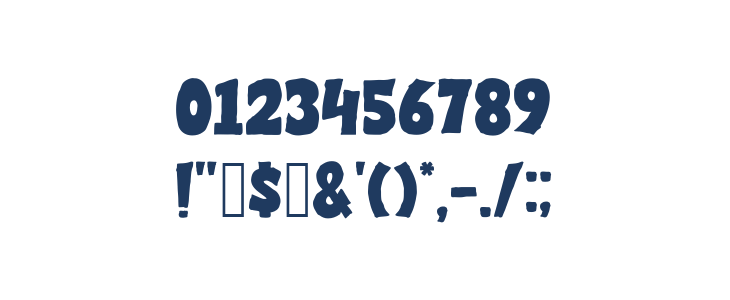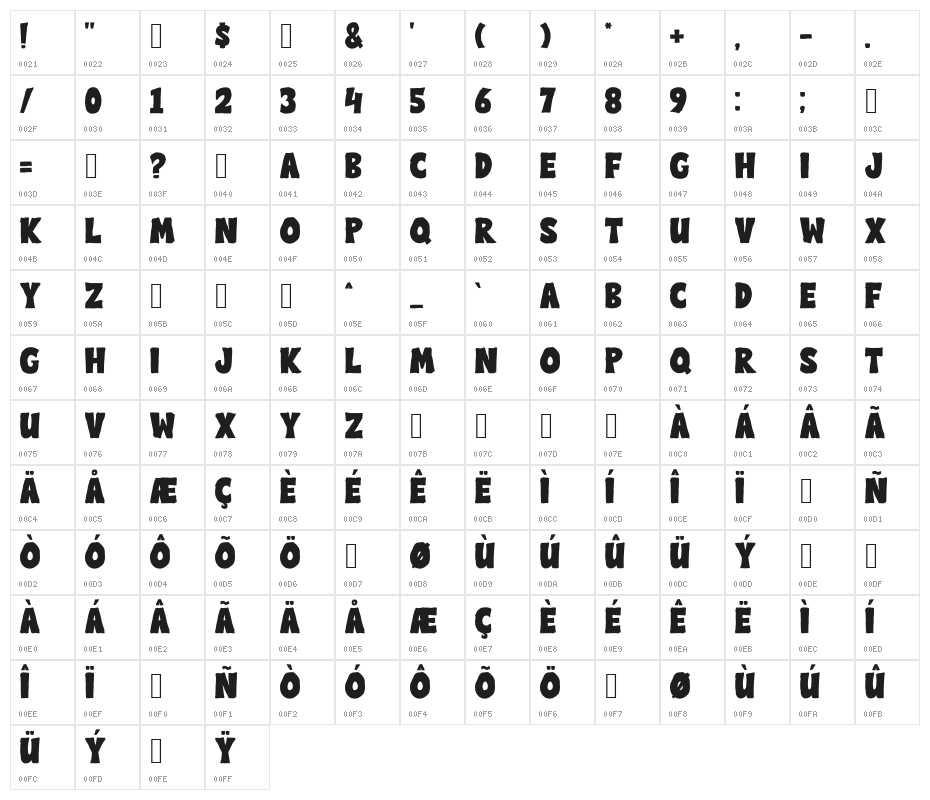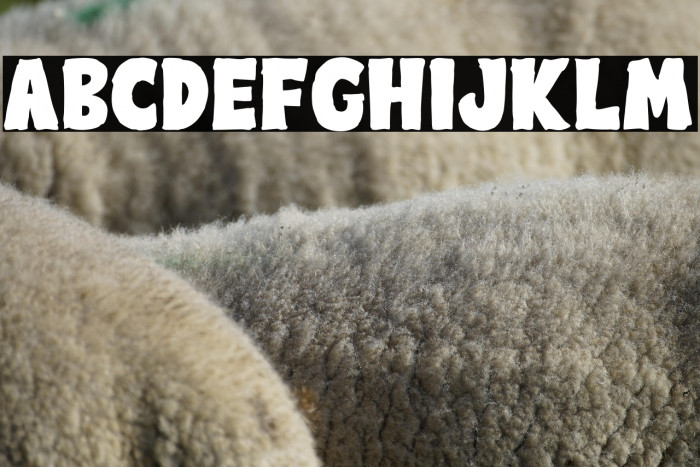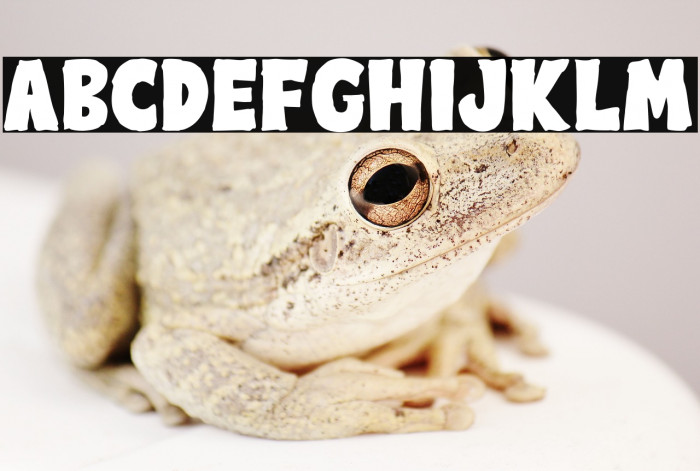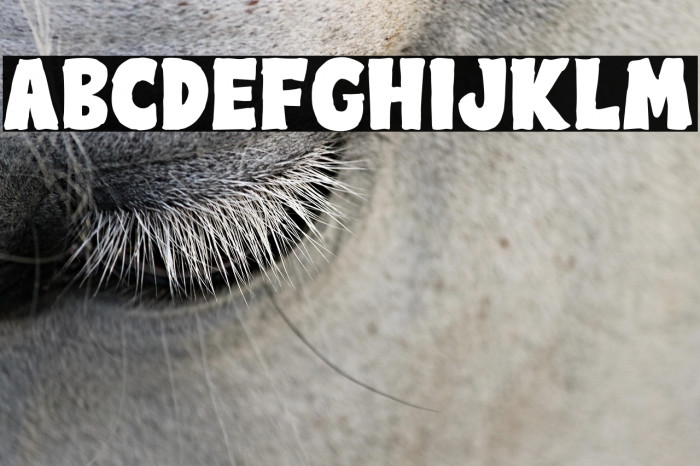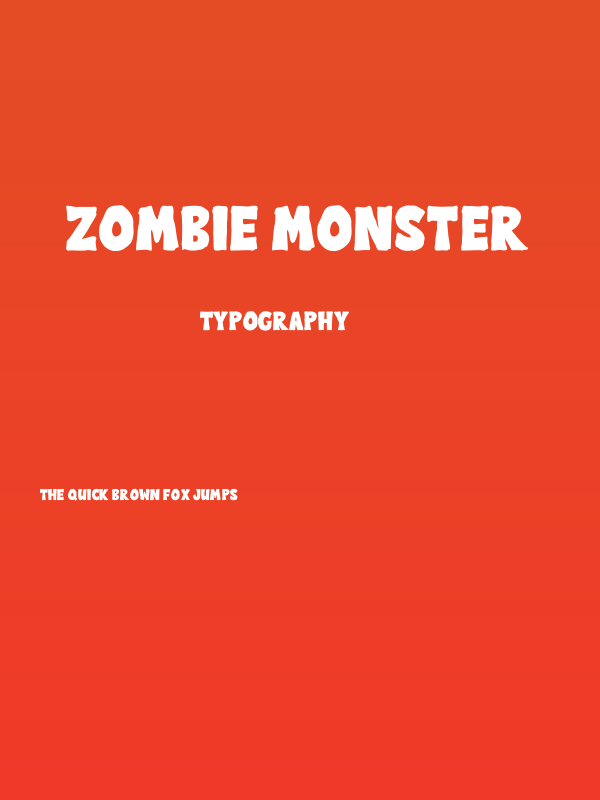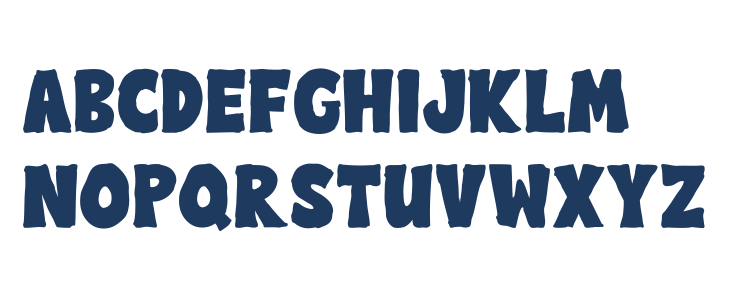
Zombie Monster Font
Zombie Monster Description
This font features a bold and playful design with a slightly irregular and rugged appearance, reminiscent of hand-drawn or carved letters. The characters have a strong presence with thick strokes and uneven edges, giving them a quirky and dynamic look. The uppercase and lowercase letters maintain a consistent style, while the numbers and special characters complement the overall aesthetic. This font is ideal for projects that require a fun and eye-catching display, such as posters, Halloween-themed designs, or children's book covers.
Proposed ProjectsPosters, Halloween-themed designs, children's book covers, playful branding.